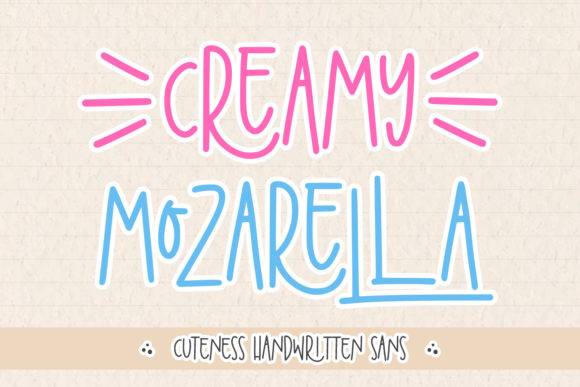
Welcome to the world of Creamy Mozarella, a fun-loving and playful display font that oozes charm and personality. This captivating font is designed to bring life to your creative projects, adding a touch of whimsy and delight to every word. With its playful curves and energetic strokes, Creamy Mozarella is a perfect match for those seeking a font that stands out and makes a statement.
Unleash your creativity with Creamy Mozarella and explore a world of possibilities. Use it to craft eye-catching framed quotes that resonate with your audience, leaving a lasting impression. Create stunning logos that exude uniqueness and personality, ensuring your brand stands out from the crowd. Design cheerful t-shirt graphics that spread joy and positivity wherever you go. Bring life to mugs and tote bags with vibrant, hand-lettered designs that inspire and uplift.
Creamy Mozarella's versatility knows no bounds. Its playful nature shines through in cards and banners, adding a touch of cheer to any occasion. Social media posts come alive with Creamy Mozarella's infectious energy, capturing the attention of your followers and leaving them wanting more. Embrace your creativity and embark on a journey of self-expression with Creamy Mozarella as your trusted companion.
Whether you're a seasoned designer or just starting, Creamy Mozarella is the perfect font to ignite your imagination and bring your ideas to life. Its user-friendly nature makes it accessible to all, allowing you to craft stunning designs with ease. So, dive into the world of Creamy Mozarella today and experience the joy of creating truly exceptional designs that leave a lasting impression.